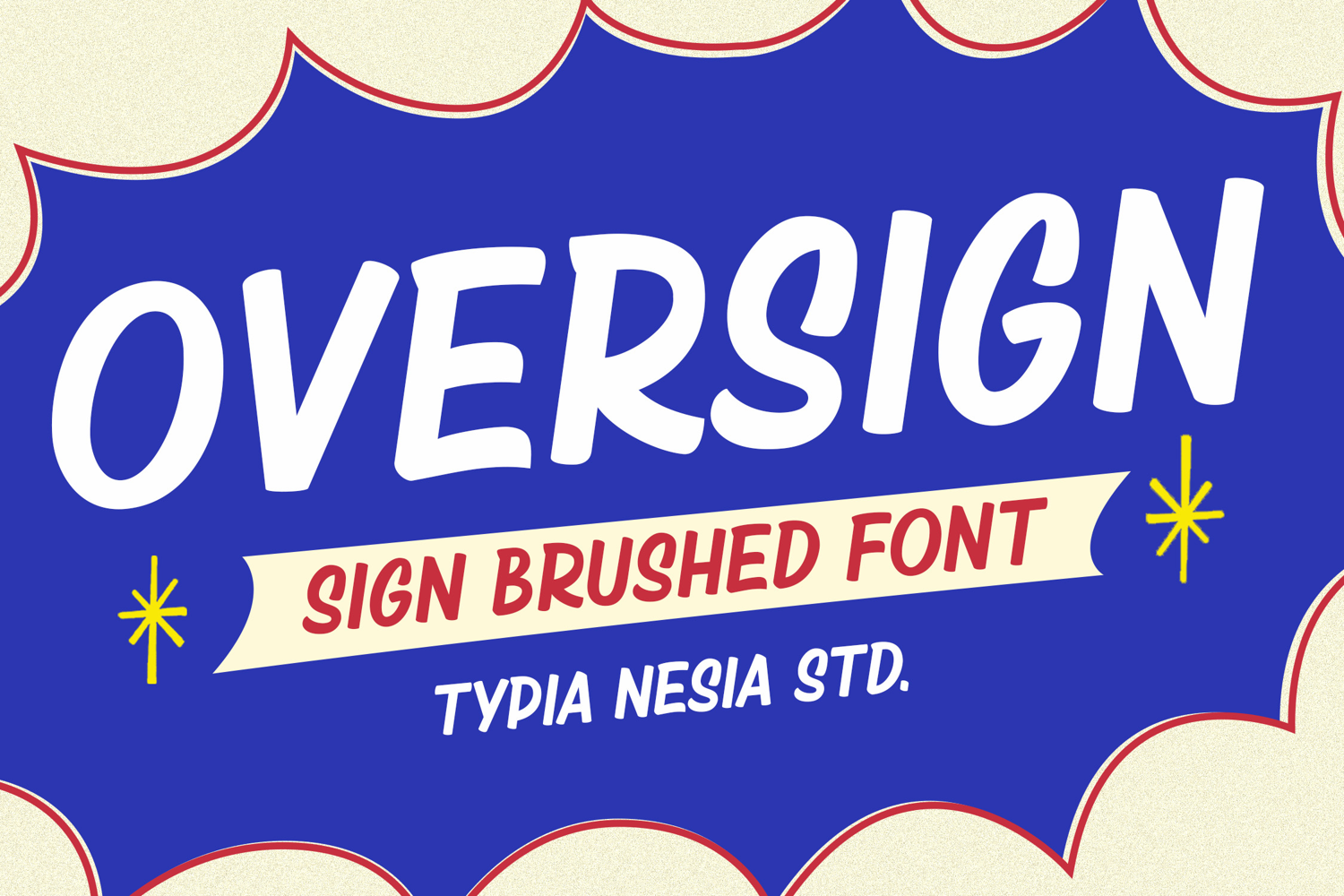
Oversign - Retro Sign Painted Brush Lettering Font
Oversign - Retro Sign Painted Brush Lettering Font - Bold Handwaritten Logo Font
Oversign is a hand-drawn typeface that masterfully blends a Modern aesthetic with Retro appeal. With its Bold strokes and casual, friendly appearance, Oversign is perfect for creating high-impact Signage, attention-grabbing Posters, vibrant Advertising materials, Food and hospitality branding, including eye-catching Logos, engaging Menu designs, and lively Packaging. Whether you're designing for a hip Cafe or a classic Restaurant, Oversign immediately communicates a welcoming and down-to-earth vibe. Comes with uppercase and lowercase characters, numerals, punctuation, and essential alternates. This feature set ensures versatility and authenticity for all your Sign Painting and hand-lettering needs.